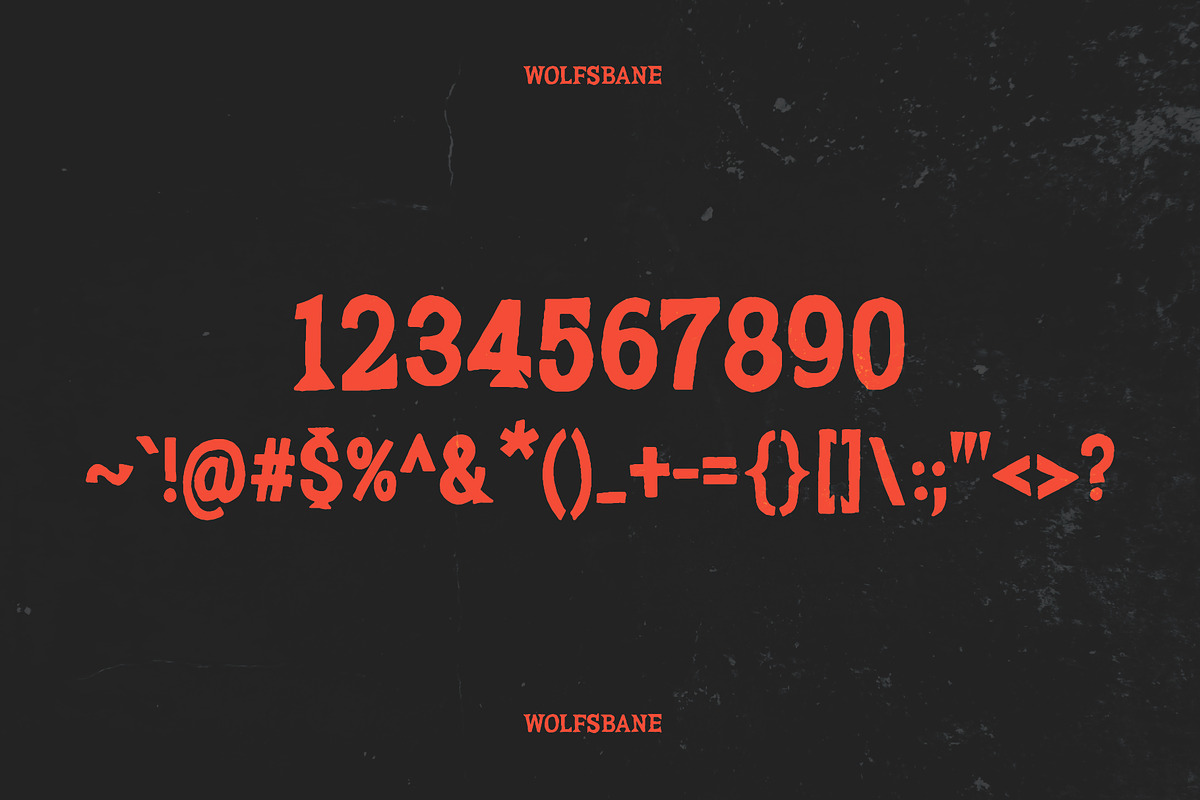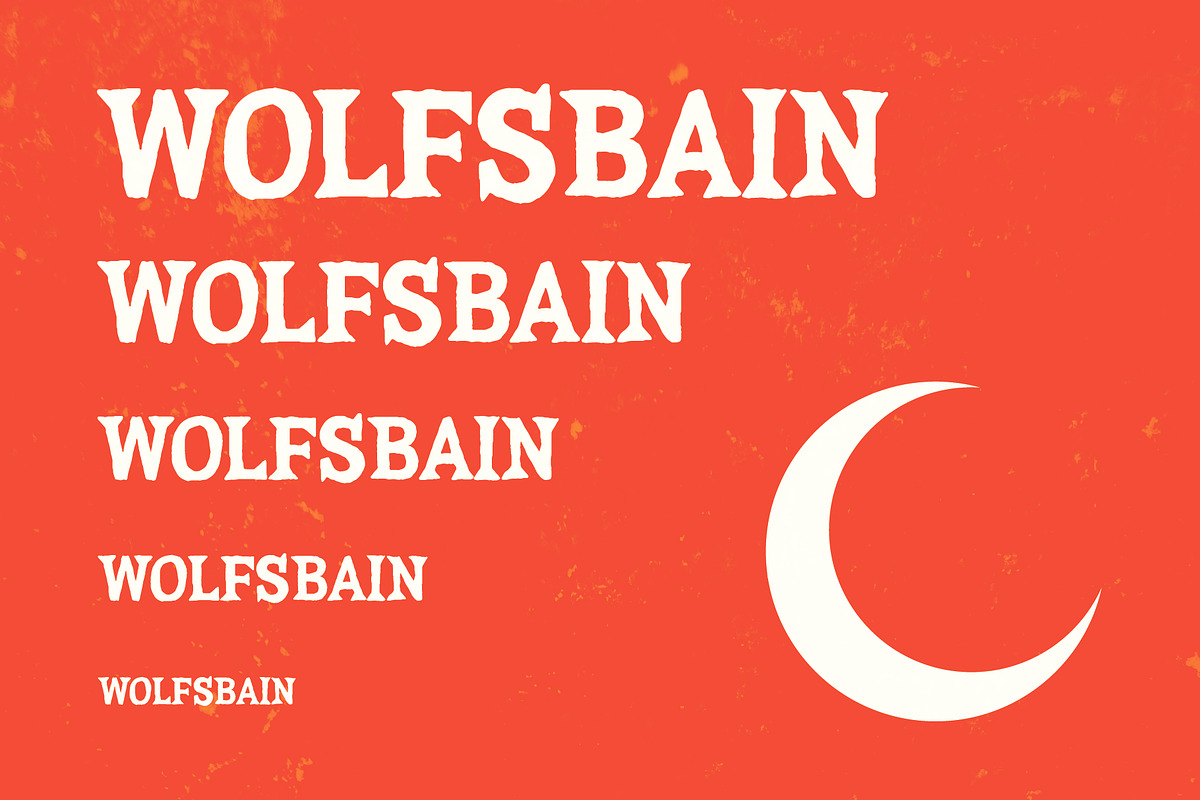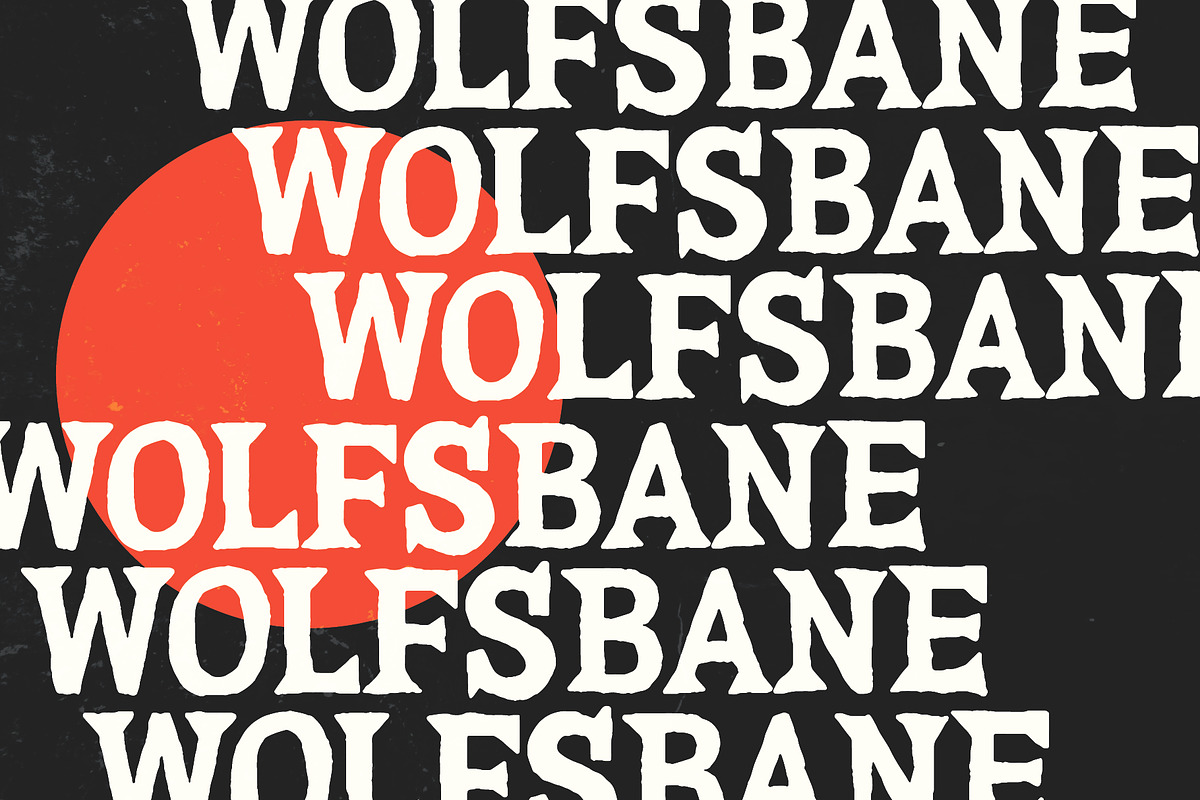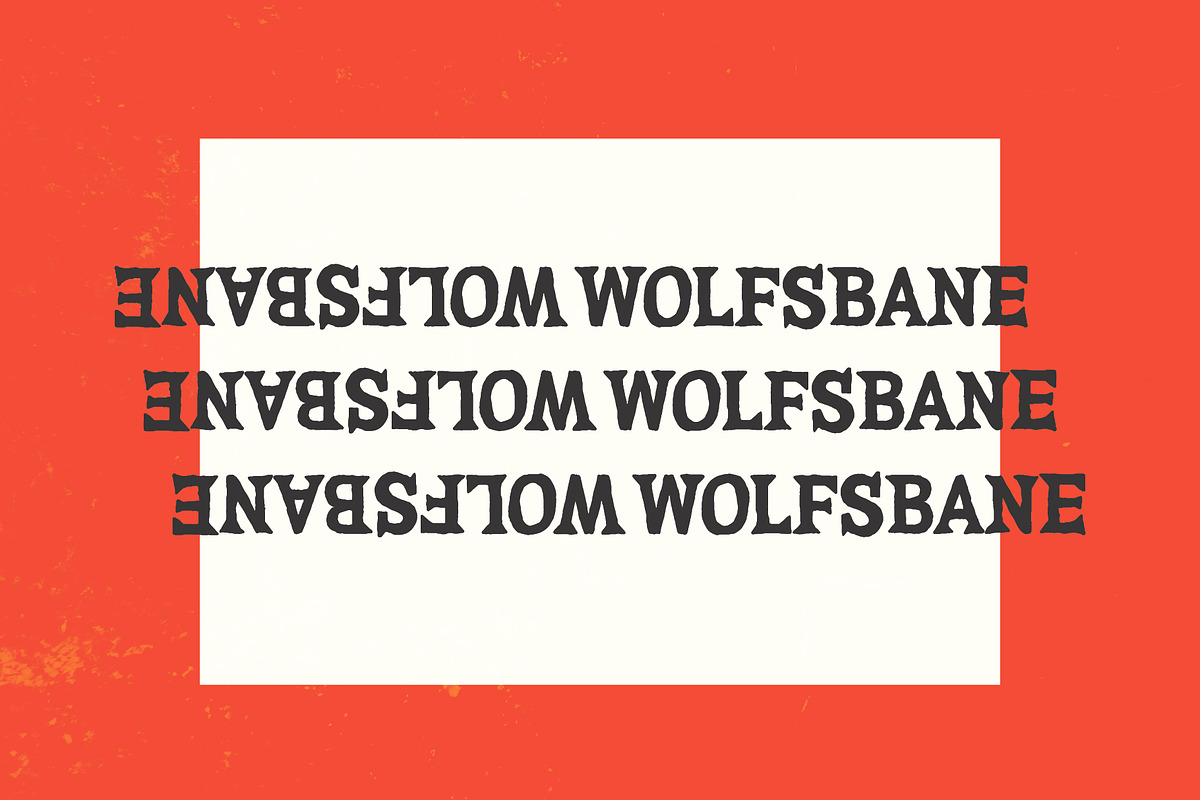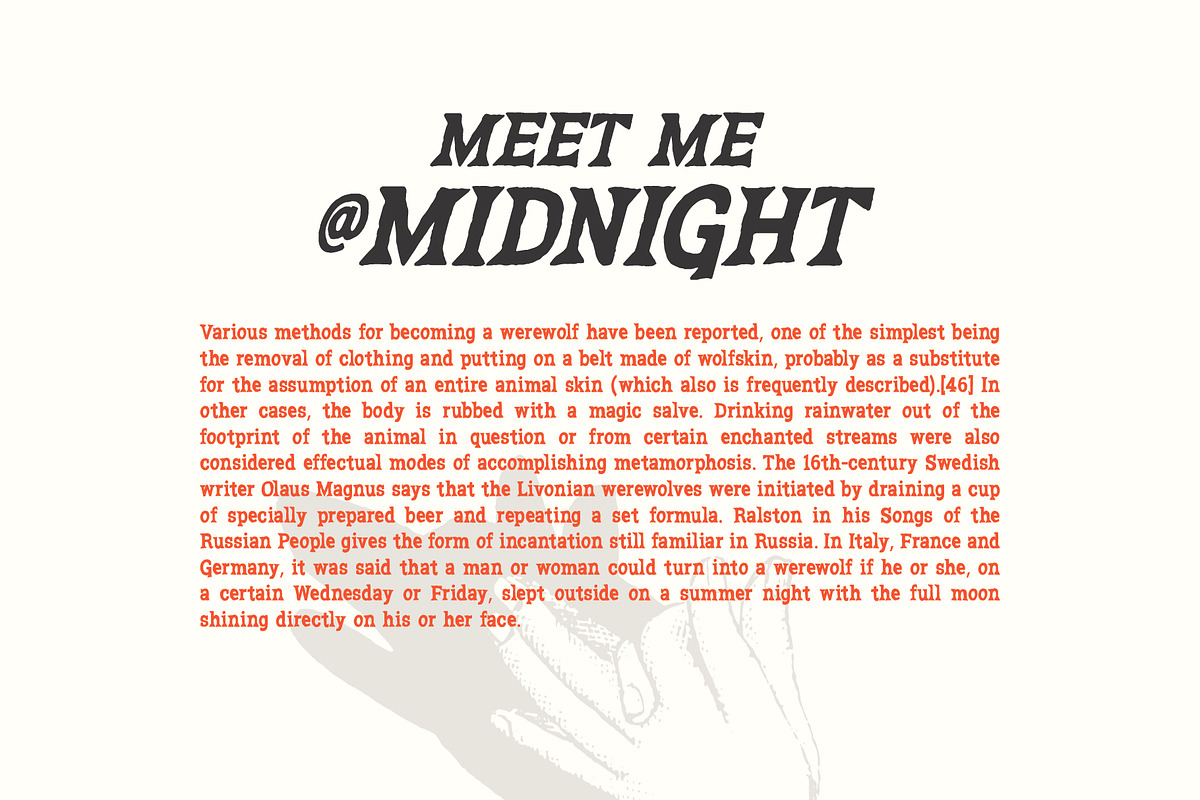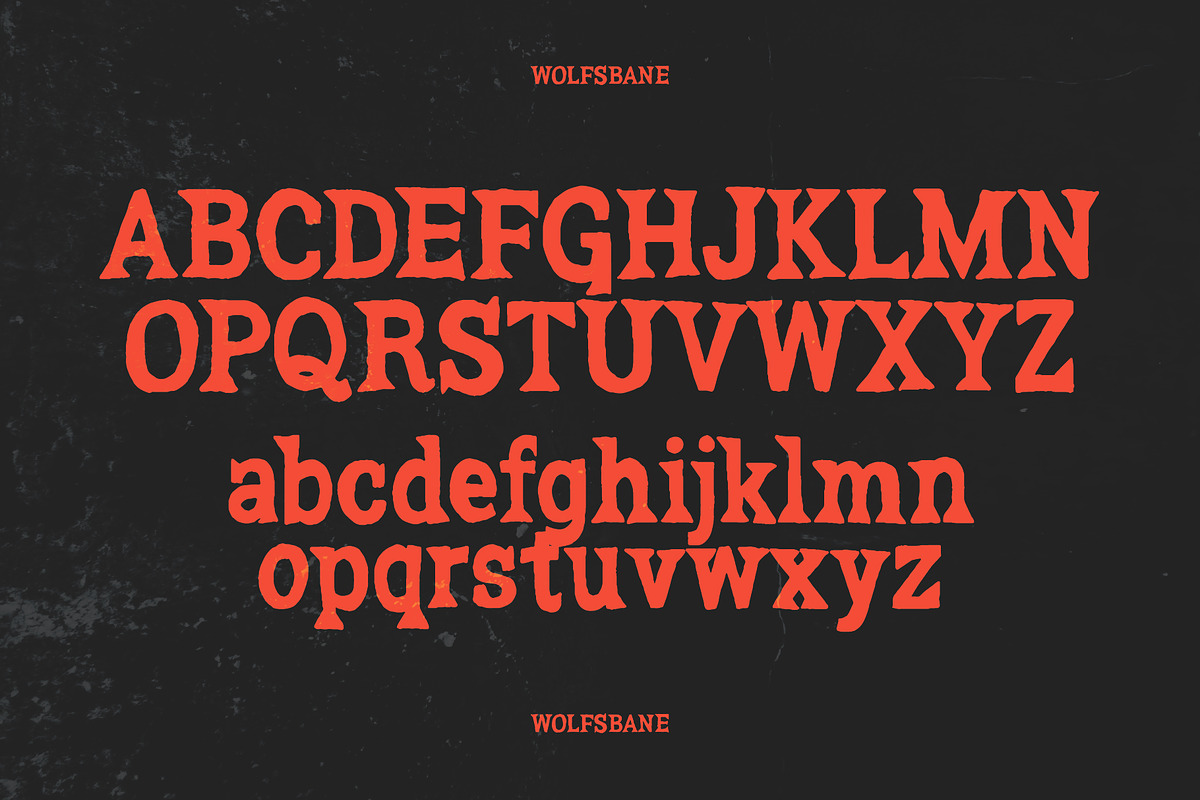
WOLFSBANE
A Spooky Serif That Howls at the Moon
Dare to step into the shadows with Wolfsbane, a hand-drawn serif font dripping with eerie elegance. Inspired by the chilling typefaces of vintage paperback horror books, this font is perfect for conjuring up designs that are as haunting as they are unforgettable.
With jagged edges and a hint of old-world sophistication, Wolfsbane balances spooky and stylish like a moonlit graveyard. It’s perfect for spine-tingling book covers, haunted event posters, or any design that thrives in the mysterious and macabre.
Vintage Horror Vibes: Straight from the pages of 70s and 80s cult horror classics. Perfectly Imperfect: Every hand-drawn detail adds character and charm. Versatile Spookiness: Just creepy enough for Halloween or year-round dark aesthetics. SEO Tags: spooky serif font, hand-drawn serif, vintage horror typeface, Halloween font, gothic typography, creepy design font, paperback-inspired font